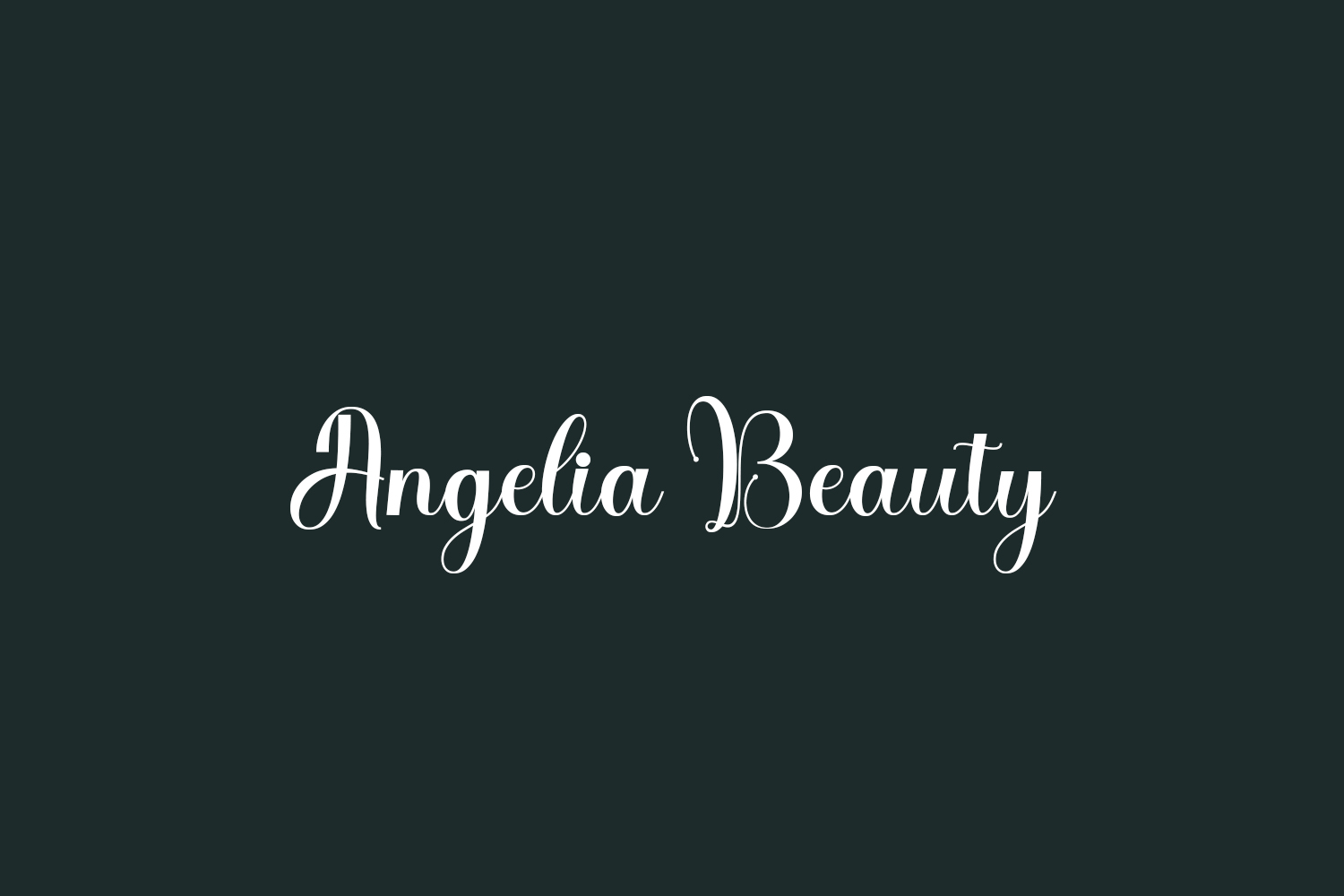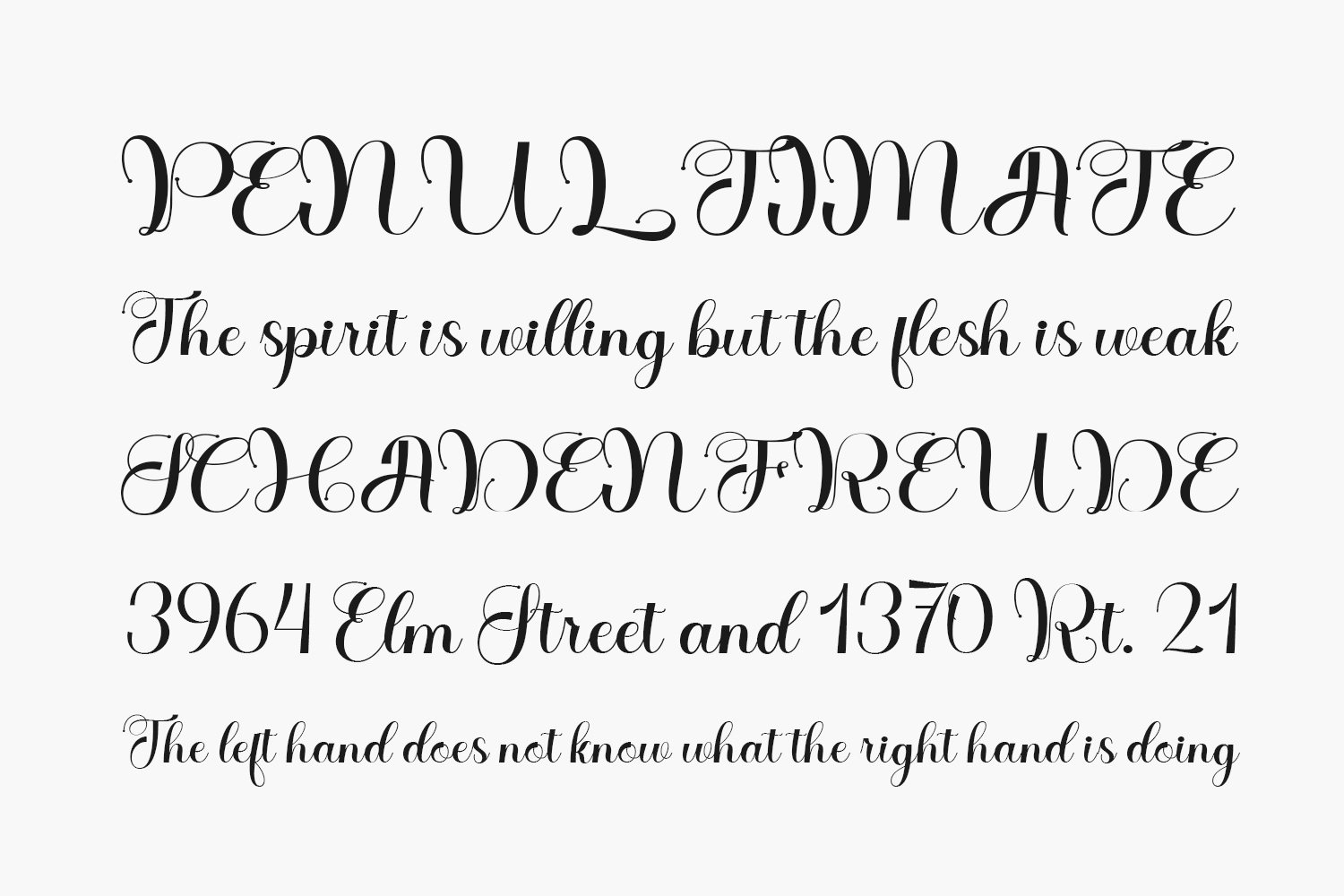
Experience the essence of beauty and elegance with Angelia Beauty Free Font, a script font that radiates class, uniqueness, and a modern flair. This stunning typeface is perfect for a wide range of applications, including logos, branding, invitations, stationery, wedding designs, greeting cards, social media posts, and so much more.
Unveil the captivating charm of Angelia Beauty as you embark on your creative endeavors. With its graceful curves and sophisticated style, this font will add a touch of refinement to every project, leaving a lasting impression on your audience. Angelia Beauty Free Font is free for personal use only. Please purchase the full version for commercial use.